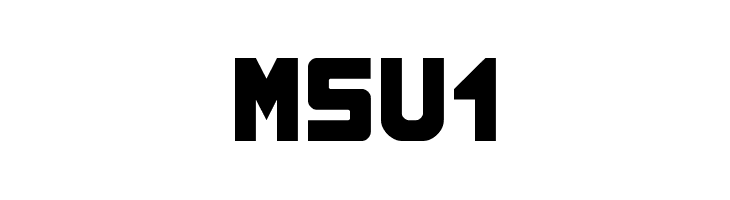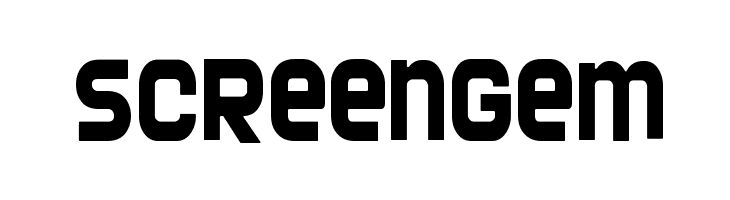
A bold, futuristic font with geometric elements and unique cutouts.
A futuristic, unicase font with geometric and organic elements.
A bold, futuristic italic font with sharp angles and geometric shapes.
A bold, playful font with a hand-drawn, graffiti-like style.
A modern, elegant font with geometric and organic elements.
A sketch-like, italic font with a hand-drawn, artistic style.
A bold, classic serif font with a modern touch, ideal for authoritative and traditional designs.
A bold, textured serif font with a grunge aesthetic and italic influence.
A bold, geometric font with a strong, industrial aesthetic.
A dynamic handwritten font with tall, narrow letterforms and fluid strokes.
A playful, comic-style font with bold, chunky letters and a humorous touch.
An elegant serif font with a dynamic italic style.
A whimsical, decorative font with playful ink-like patterns.
A bold, left-italic sans-serif font with a modern and dynamic style.
A graceful and sophisticated script font with flowing cursive characters.
A playful, whimsical font with arrow-like serifs and consistent stroke width.
A bold, elegant script font with high contrast and flowing cursive letterforms.
A medieval-inspired decorative font with unique curves and dragon motifs.
Handwritten cursive script font.
A playful, decorative font with bold characters enclosed in circles.
A bold, geometric font with interconnected puzzle-like characters.
A bold, brush-style font with dynamic, hand-crafted strokes.
A futuristic, dotted font with a slanted, digital style.